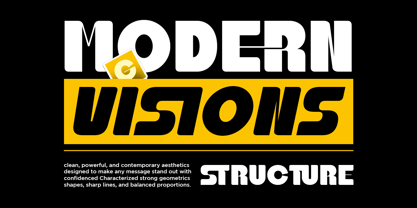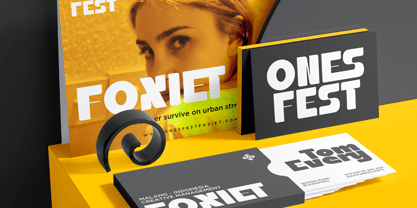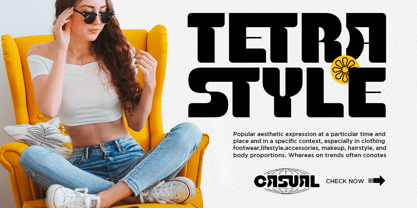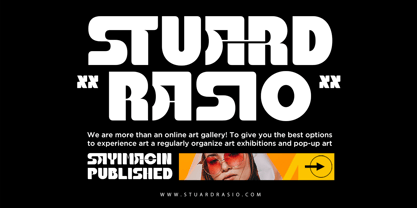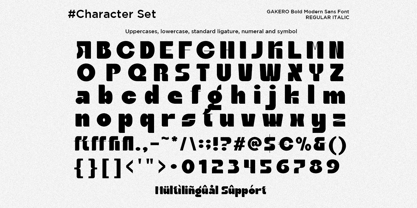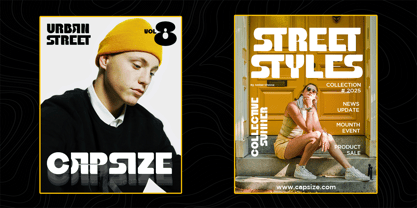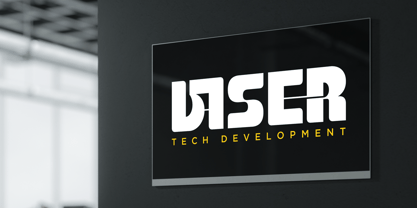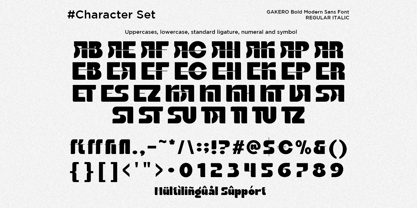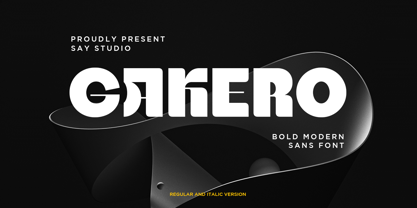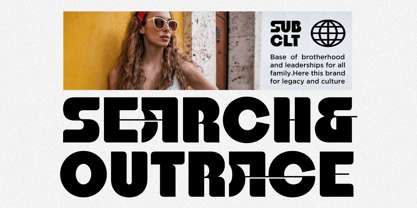
Gakero
Gakero is a bold modern sans font crafted to deliver confidence, clarity, and contemporary style. Featuring geometric letterforms, clean construction, and strong proportions, Gakero creates a striking visual presence that instantly captures attention. Its bold appearance makes it ideal for projects that demand impactful typography while maintaining excellent readability.
Designed for today's creative industries, Gakero works seamlessly across branding, advertising, digital media, and editorial design. Whether you're creating logos, posters, product packaging, social media graphics, or website headlines, this font offers the versatility needed for both professional and commercial projects. Its modern aesthetic blends simplicity with character, making it suitable for a wide range of creative applications.
Gakero is the perfect choice for designers looking to build bold visual identities with a clean and professional appearance. From startup branding and corporate presentations to marketing campaigns and creative portfolios, this font helps every design communicate confidence, innovation, and lasting impact.
• Regular and Italic
• Stylistic Ligatures
• Uppercase and Lowercase
• Number, Symbol, and Punctuation
• Multi Language Support